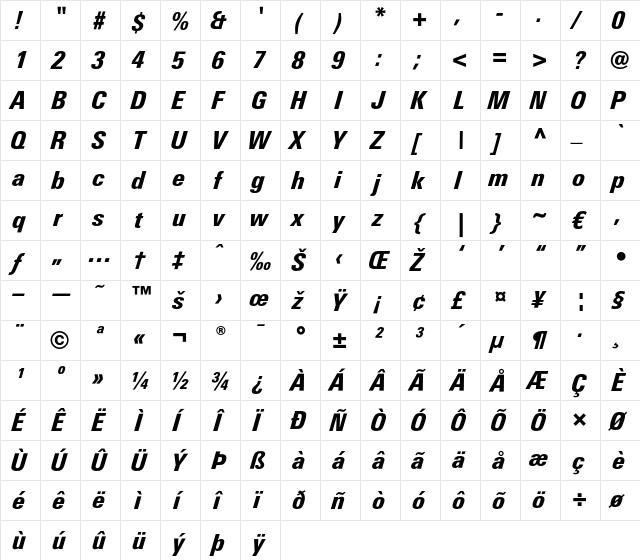
LTUnivers 821 CondBlackIt
Design Context for LTUnivers Typeface
LTUnivers takes a measured approach to typography — its balanced proportions and neutral character make it a reliable workhorse for both digital and print work. Its narrow stance lets it pack a punch even in space-constrained designs.